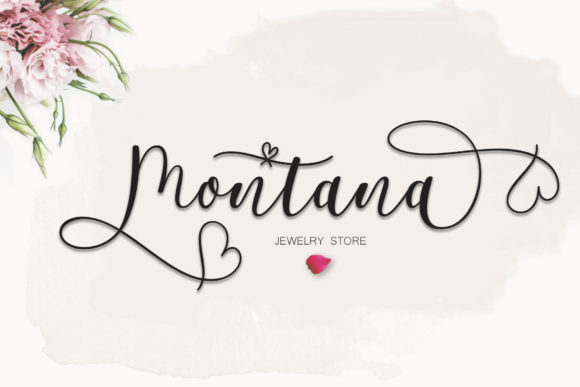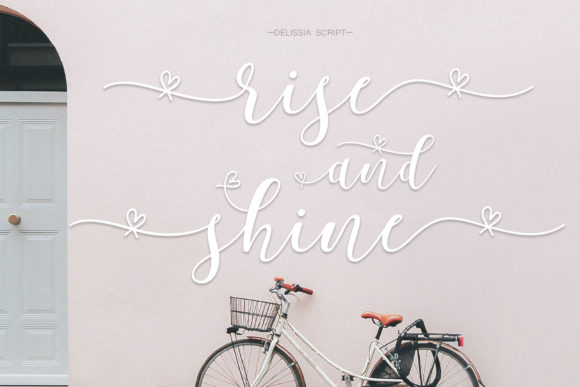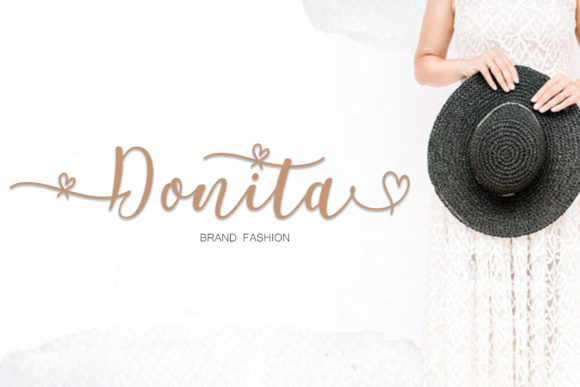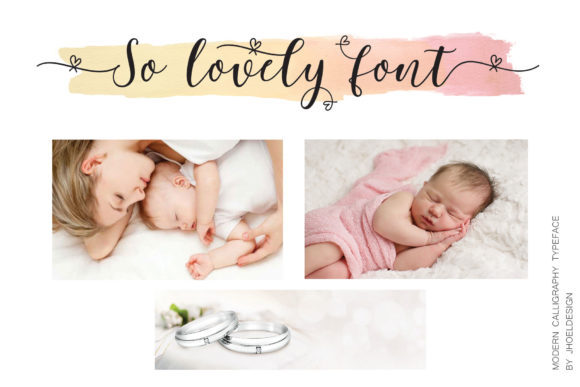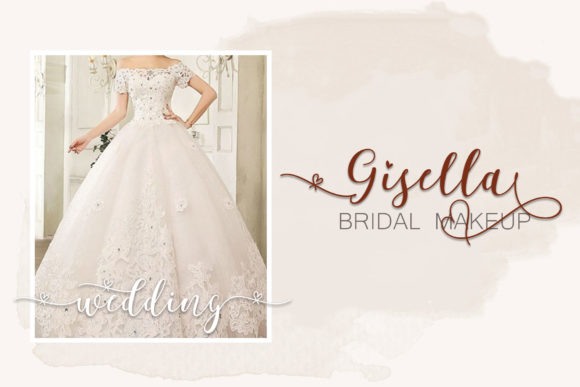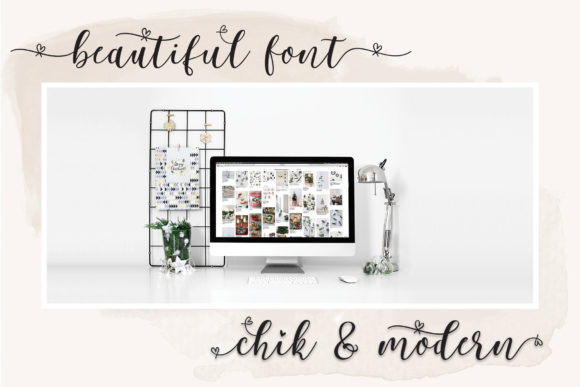
Unleash Your Creativity with the Delissia Script Font
Have you ever found yourself scribbling down ideas in the middle of the night, pouring your heart and soul into a design project, or simply experimenting with different fonts to find the perfect fit? For designers, these moments of creative fervor are what drive us to push the boundaries of what’s possible. And for those who crave a fresh and modern touch, the Delissia Script Font is sure to become your new go-to.
This beautiful handmade script font boasts a stunning calligraphy style that’s perfect for adding a touch of elegance to your designs. Its dancing baseline gives it a luxurious feel, making it ideal for logos, branding materials, posters, quotes, and more. Whether you’re a seasoned pro or just starting out, the Delissia Script Font is a valuable addition to any designer’s toolkit.
Designer Review: Delissia Script Font
Overall, I think Delissia Script Font is a beautiful, elegant choice for many design projects. ✨ Its flowing, handwritten style is perfect for adding a touch of sophistication and whimsy to branding materials, signage, and digital products.
Here are some things that really work well:
- ✨ Unique, handcrafted feel that sets it apart from more generic script fonts.
- ✨ Beautifully crafted ligatures and letter connections add to its organic, handwritten feel.
- ✨ Excellent legibility, even at small font sizes, making it a great choice for body text.
- ⚠️ Limited language support, which may make it difficult to use for multilingual projects.
- ⚠️ Not as versatile as some other script fonts, which may limit its use in certain design contexts.
- ⚠️ May require additional styling or manipulation to achieve the desired look in certain design programs.
Overall, I think Delissia Script Font is a great choice for designers who want to add a touch of elegance and sophistication to their projects. While it may have some limitations, its unique style and excellent legibility make it a worthwhile addition to any designer’s toolkit.
Getting the Most Out of Delissia Script
Here are some tips to get the most out of Delissia Script:
- Use it for titles, headings, and other text elements where you want to add a touch of elegance.
- Combine it with other fonts to create a unique and eye-catching typography.
- Experiment with different font sizes and colors to find the perfect combination.
Delissia Script is perfect for:
Alternatives to Delissia Script Font
Playfair Display is a luxurious script font that is perfect for creating elegant and sophisticated designs. It is ideal for use in titles, headings, and other high-impact areas where a touch of luxury is desired. Compared to Delissia Script Font, Playfair Display has a more classical and refined feel, with intricate flourishes and elegant connections between letters.
Great Vibes is a beautiful, handwritten script font that is perfect for creating friendly and approachable designs. It is ideal for use in logos, titles, and other areas where a personal touch is desired. Compared to Delissia Script Font, Great Vibes has a more casual and relaxed feel, with a softer and more fluid connection between letters.
Carolyna Pro is a elegant and sophisticated script font that is perfect for creating high-end designs. It is ideal for use in titles, headings, and other areas where a touch of luxury is desired. Compared to Delissia Script Font, Carolyna Pro has a more modern and sleek feel, with a strong connection between letters and a touch of sophistication.